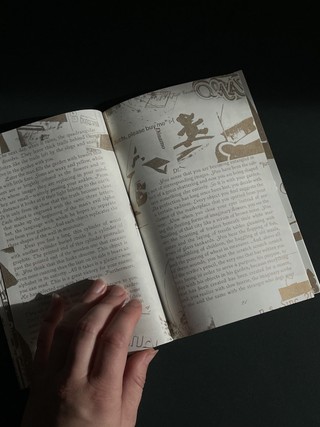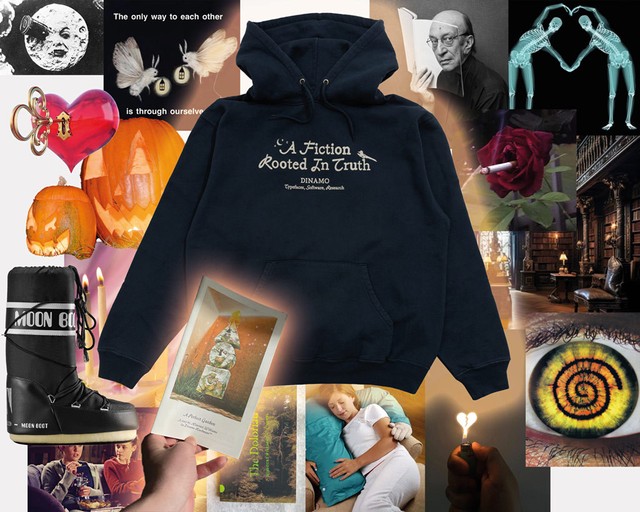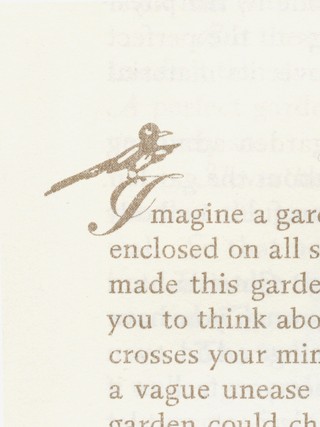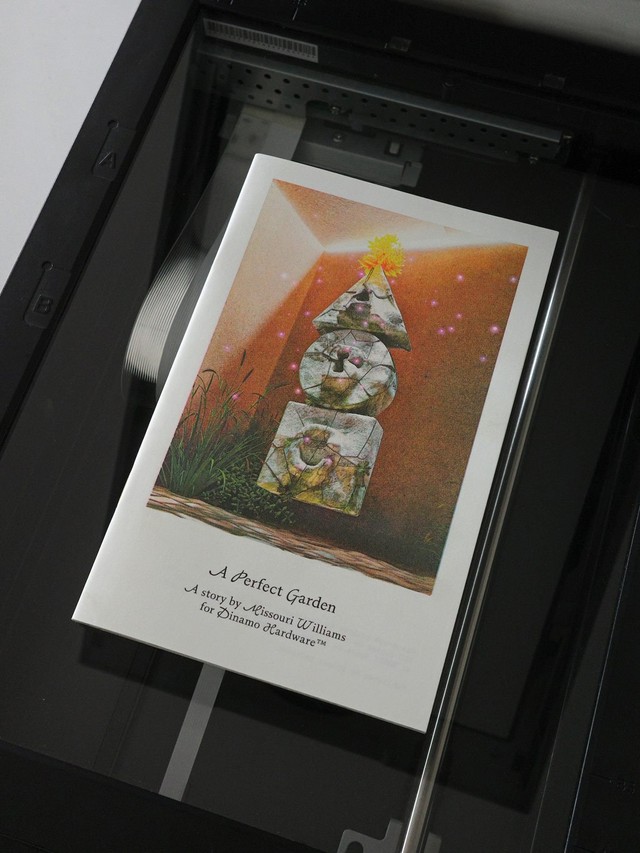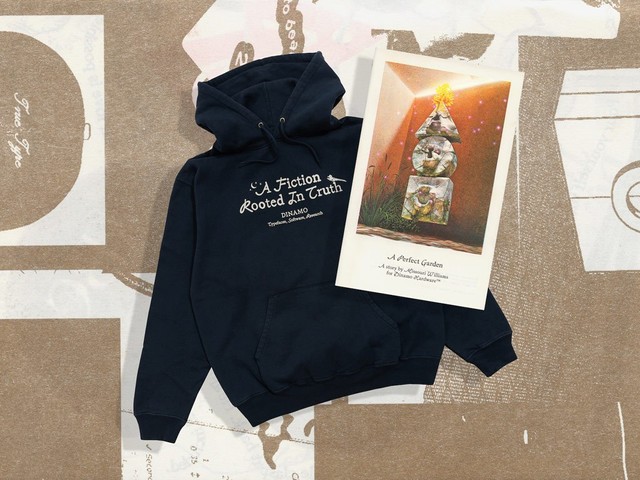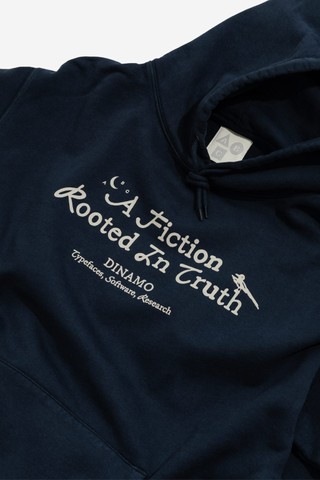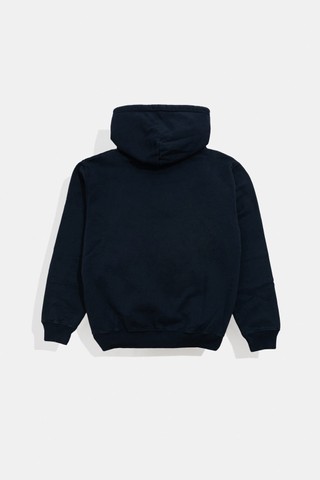
✨ “Inside the garden you have everything you need” ✨ —
With the winter months coming up, we’re adding a new surprise to our Hardware Unlocked Collection today.
A Fiction Hoodie is a beautiful, soft embrace for library lovers, which comes with its own short story by the dystopian author and novelist Missouri Williams.
A Fiction Hoodie
A Fiction Hoodie is a heavyweight cotton, classic fit fleece in midnight blue. It features a slogan set in off-white ABC Honeymoon and ABC Gramercy across its face, with special moon and robin glyph detailing.
Square ABC logo label sewn into hood, plus kangaroo pocket, drawstrings, and rib knit hem and cuffs ideal for page-turning.🌛
A Perfect Garden
Risograph printed by friends at Earthbound Press in London and featuring three foundry typefaces. 26 pages, gold ink + four colors with foldout poster. Published by Dinamo Editions.
A hybrid between a WIP notebook, a Hardware catalog, and a dystopian fever dream, A Perfect Garden add a lil'’ destruction to the release of our recent Hardware Unlocked Collection.
Author Missouri Williams — whose work has appeared in The Nation, The Baffler, Granta, and the Believer — transforms our new collection into the subject of a dark fable. In intricate and hallucinatory prose, A Perfect Garden follows its unknown protagonist in their enclosed garden, as they try to protect their world from intruding words, people, and things.
“Inside the garden you have everything you need. You need nothing. And so the garden is empty.”
Hoodie & Zine Lifestyle
This could be you. Creepy-cozy autumn fiction reading 4K vision board.